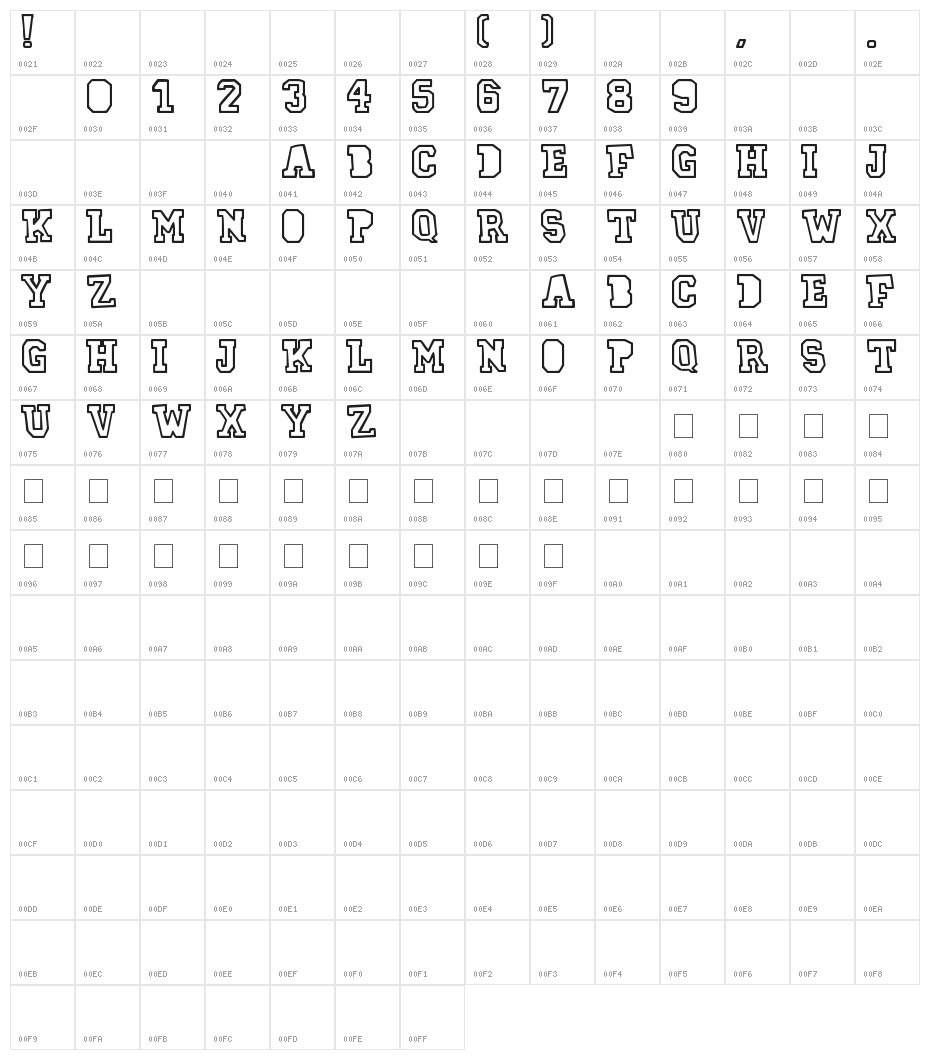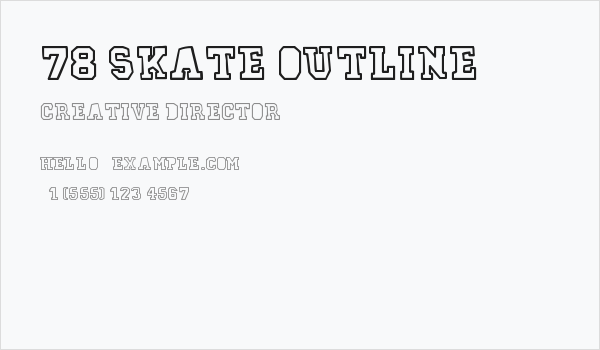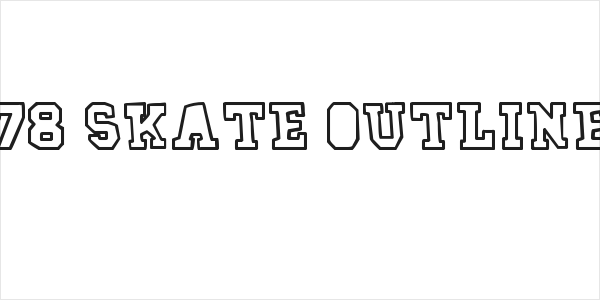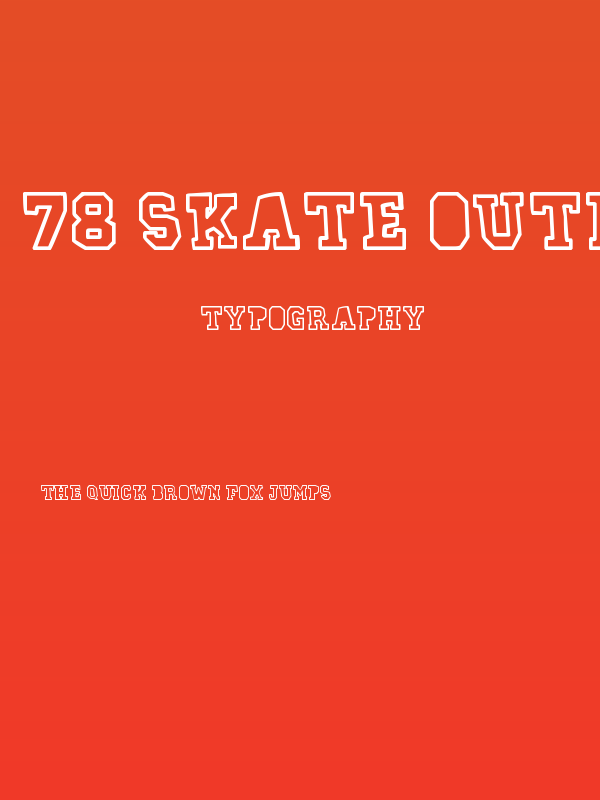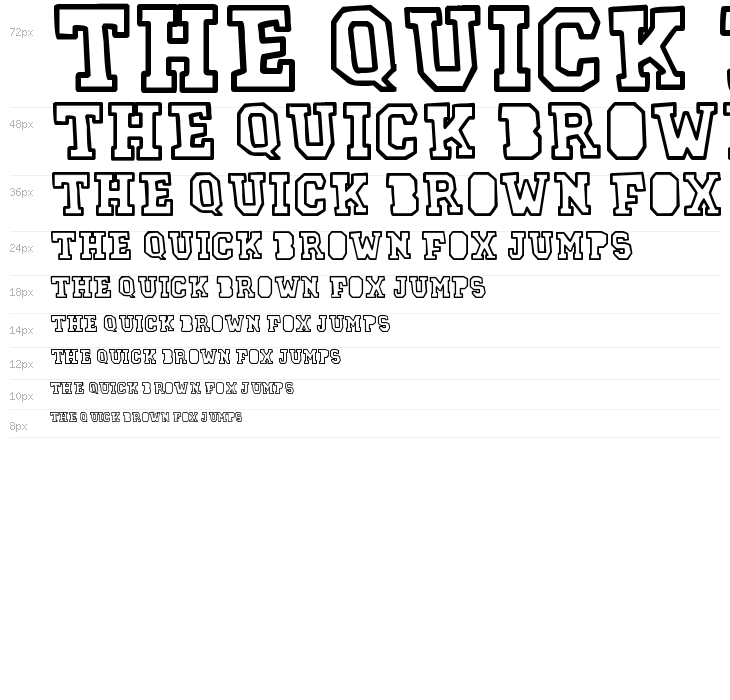
78 skate outline Font
78 skate outline Description
This font features a bold, outlined style with a strong geometric structure. Each character is defined by thick, uniform strokes that create a striking outline effect, giving the font a distinctive and modern appearance. The uppercase letters are particularly bold, with sharp angles and clean lines that enhance readability while maintaining a unique aesthetic. The numerals and special characters follow the same design principles, ensuring consistency across all elements. This font's outlined style makes it ideal for projects that require a bold statement or a modern, edgy look.
| Proposed Projects | Ideal for skateboarding brands, urban-themed posters, modern logos, and eye-catching headlines. |